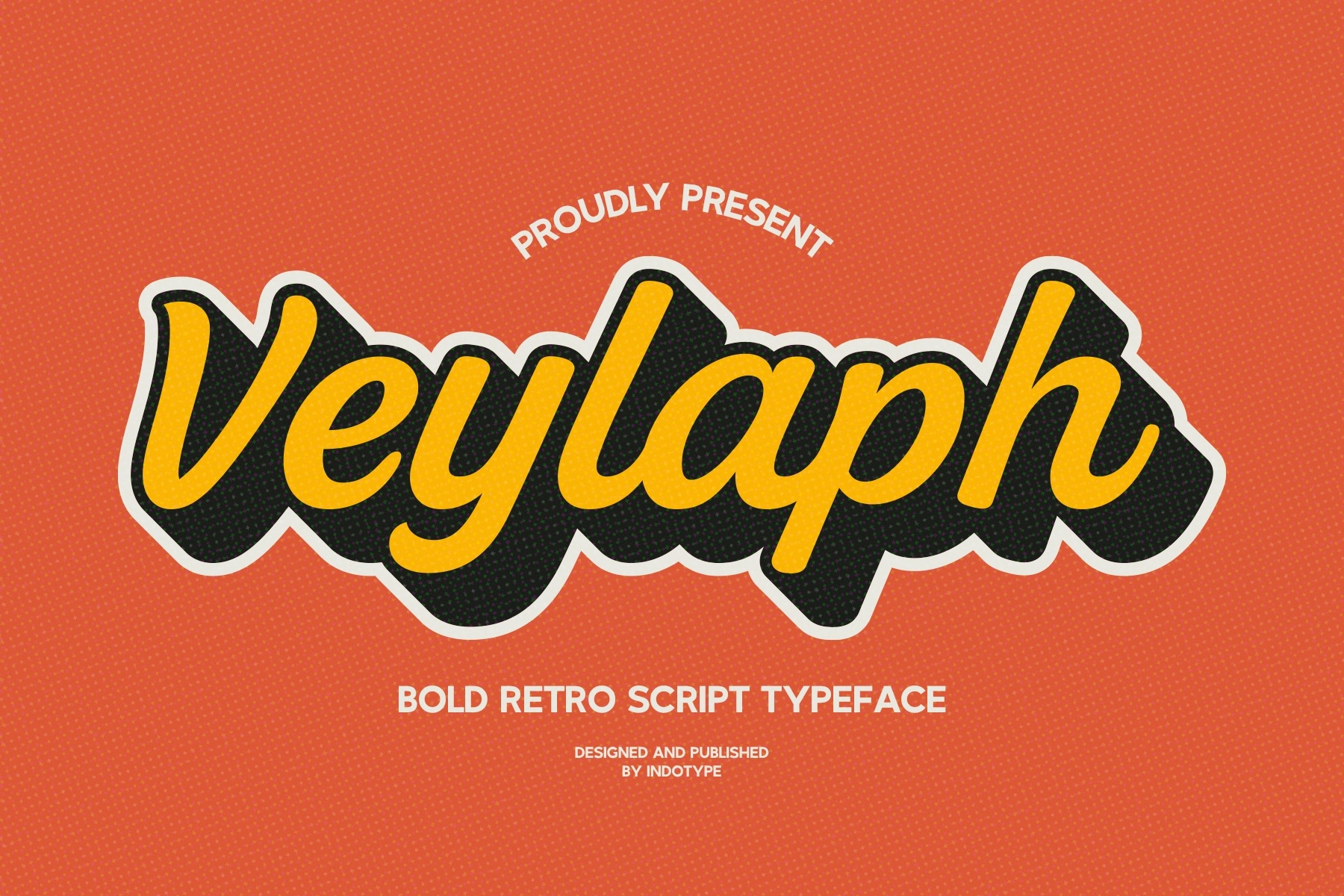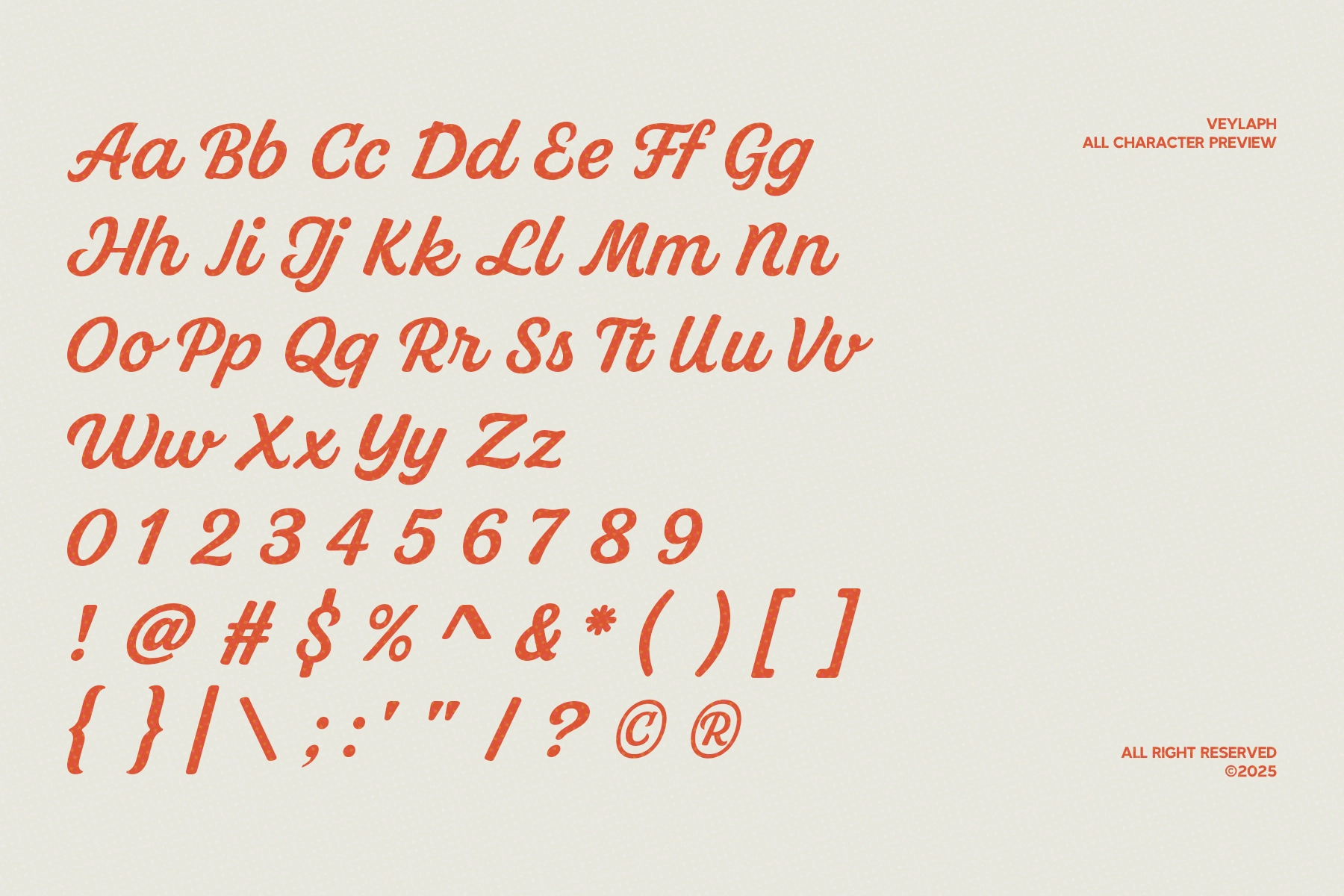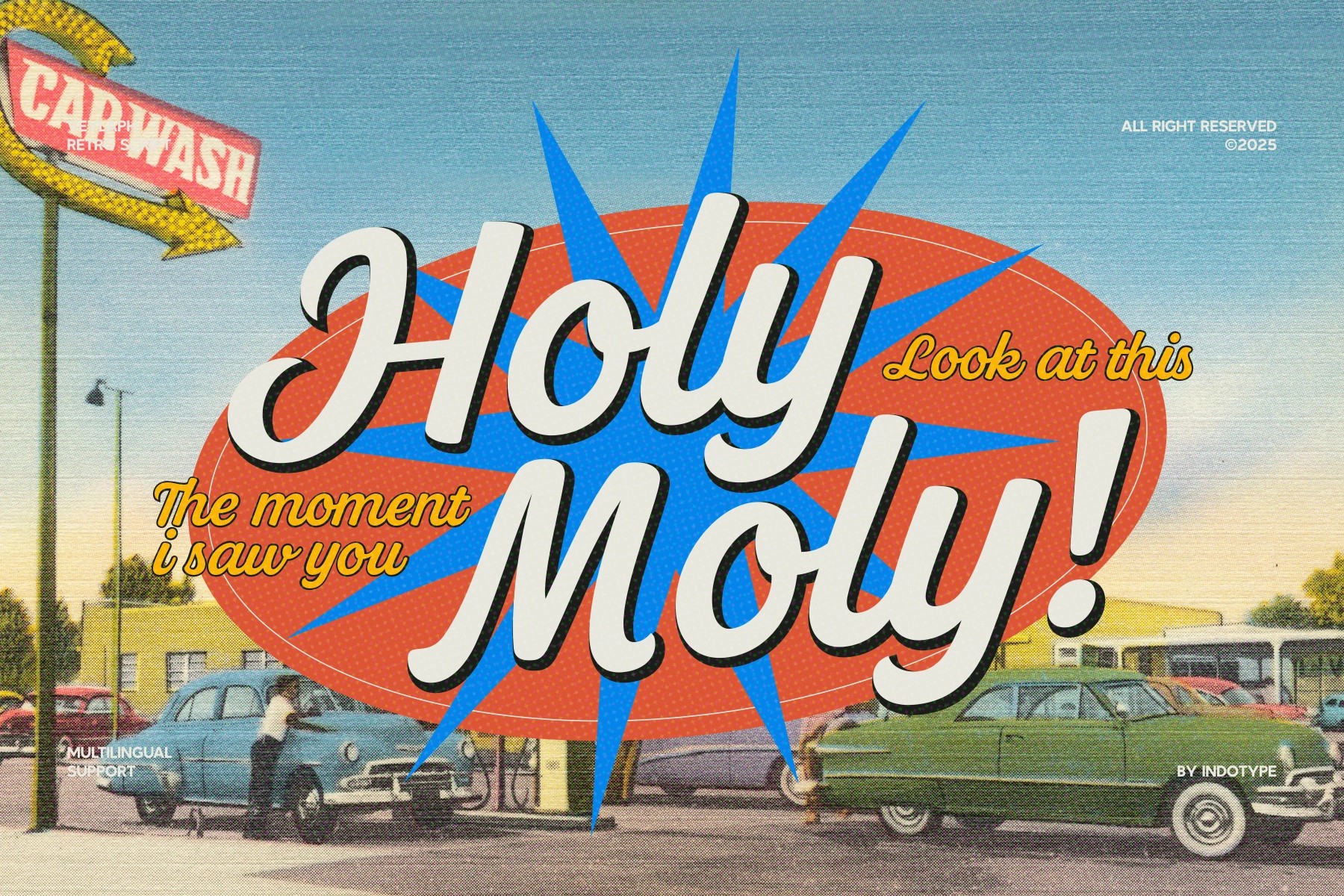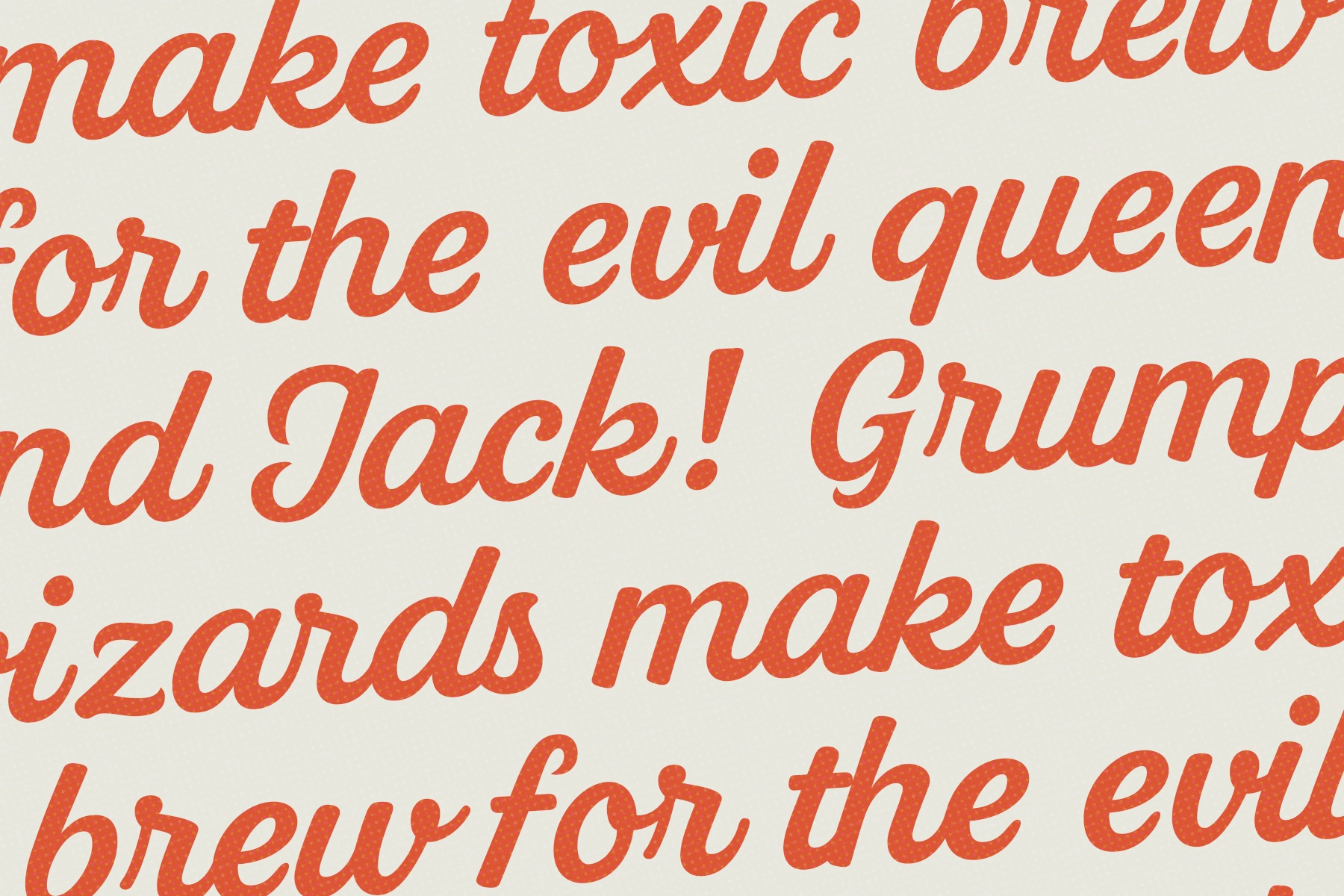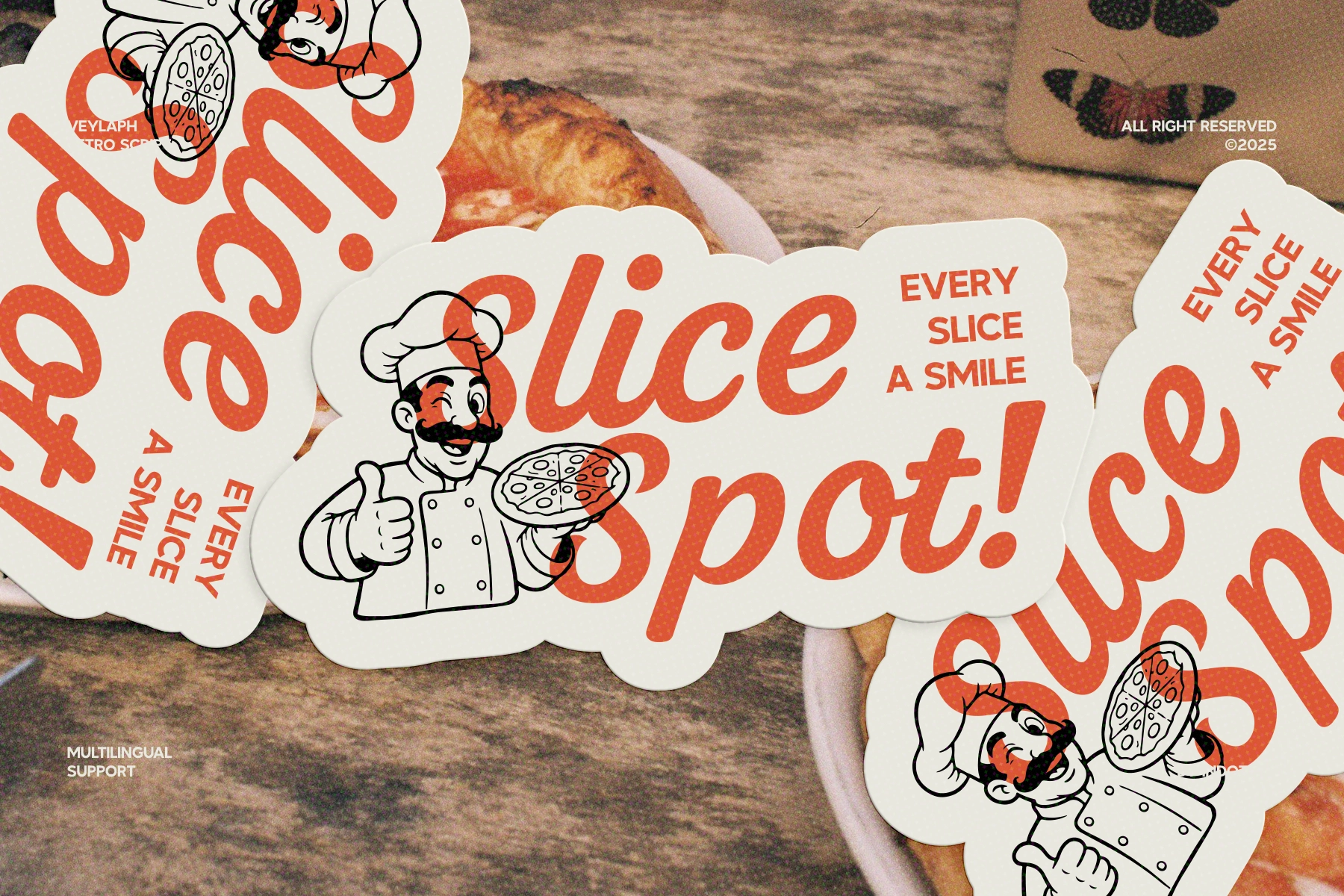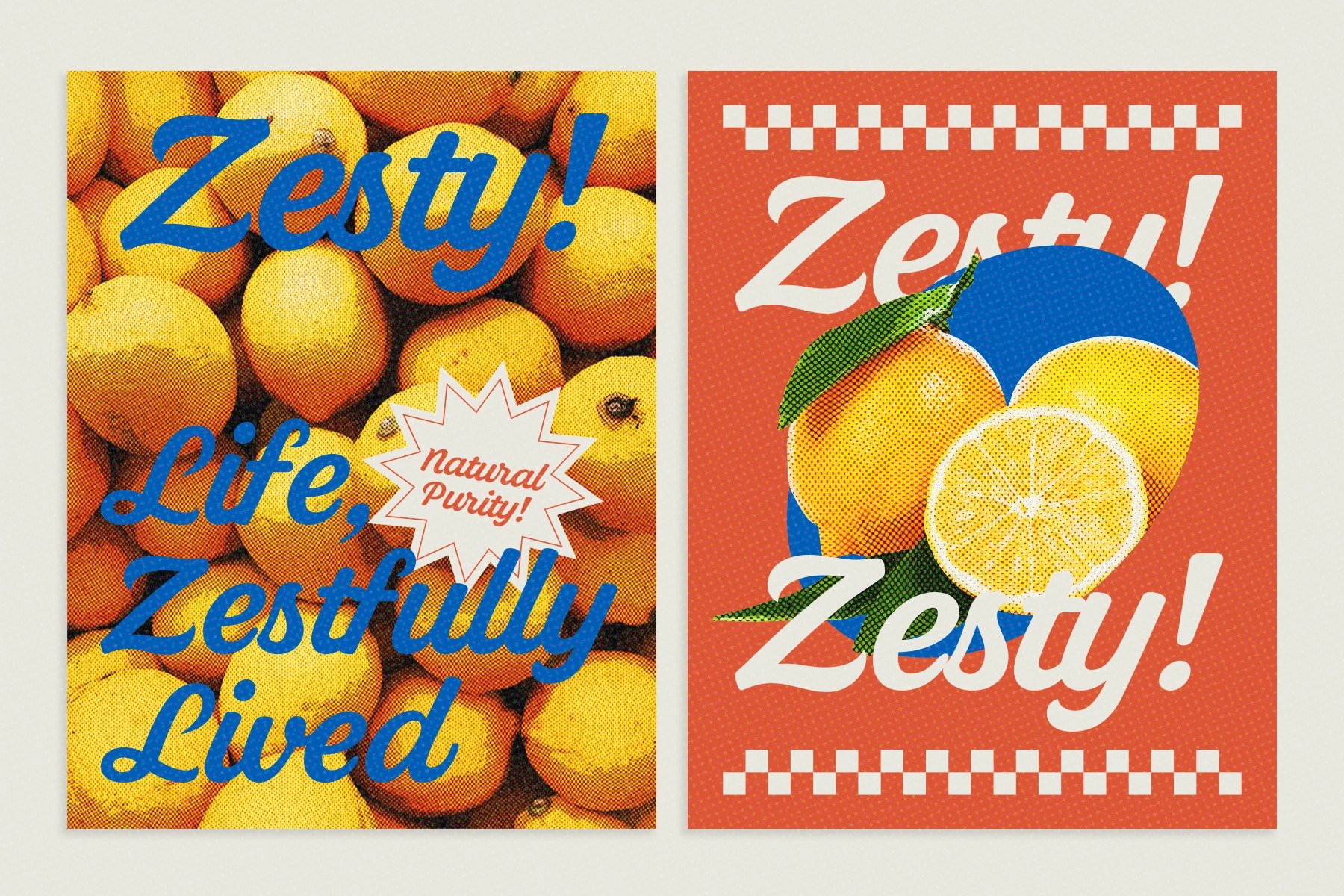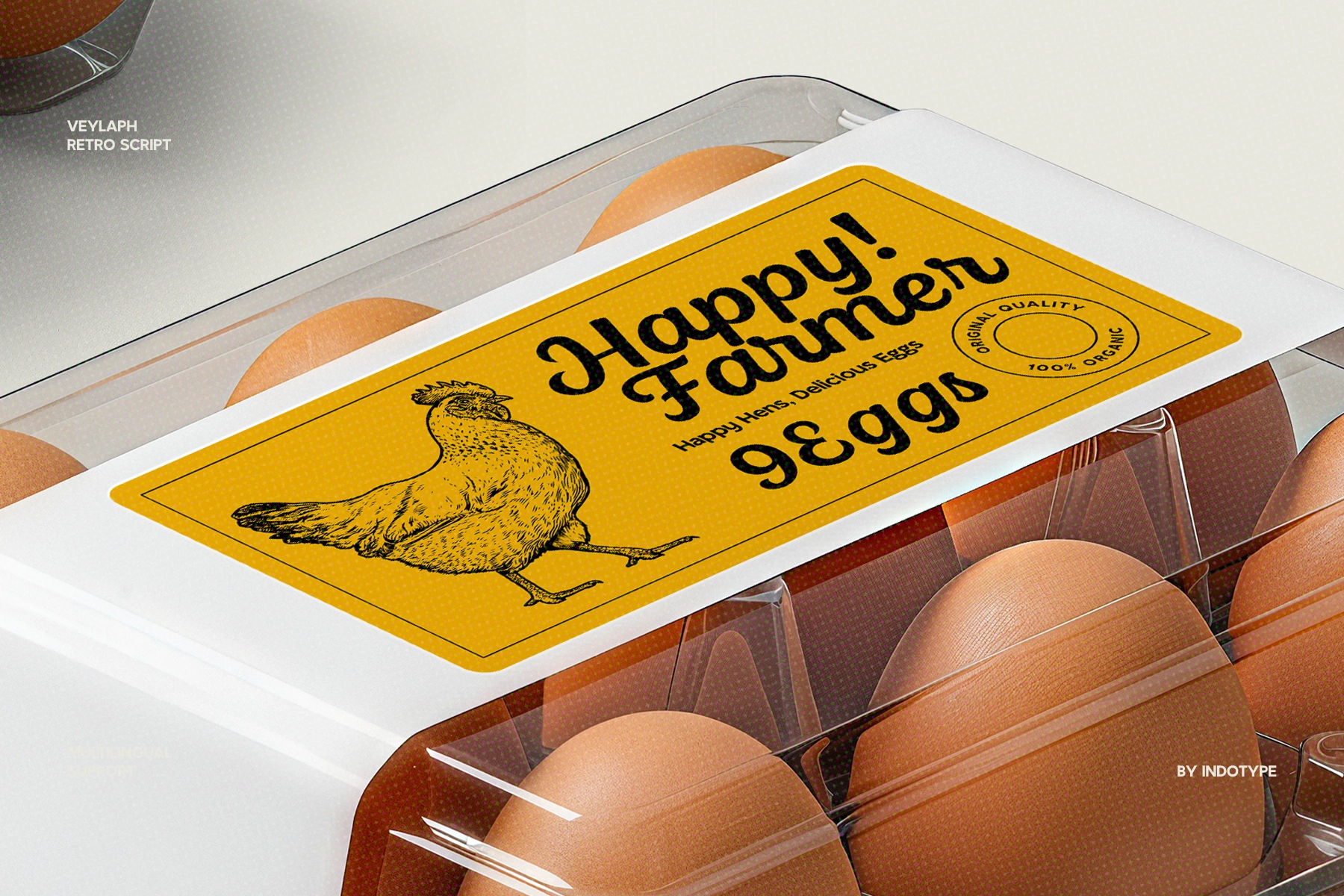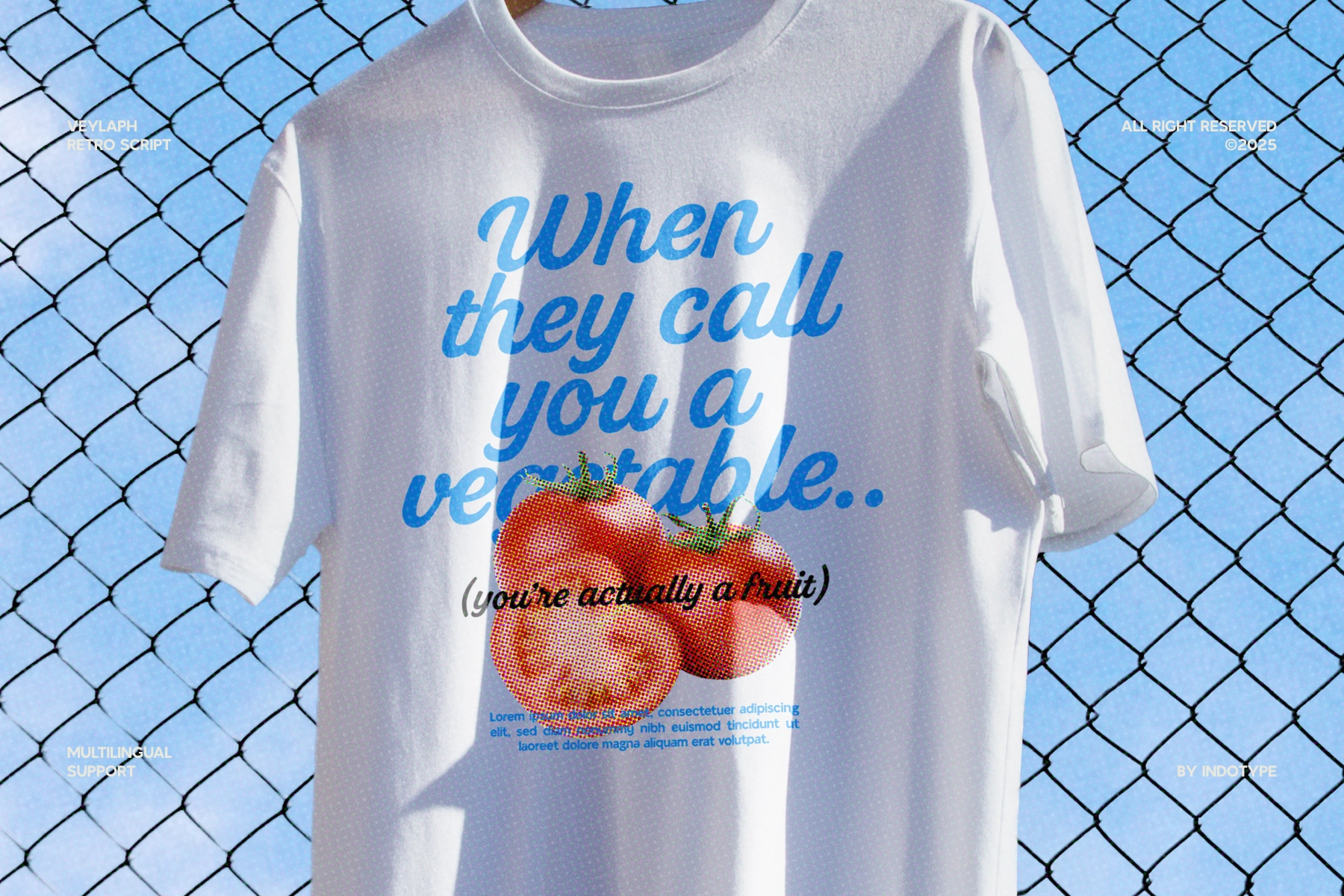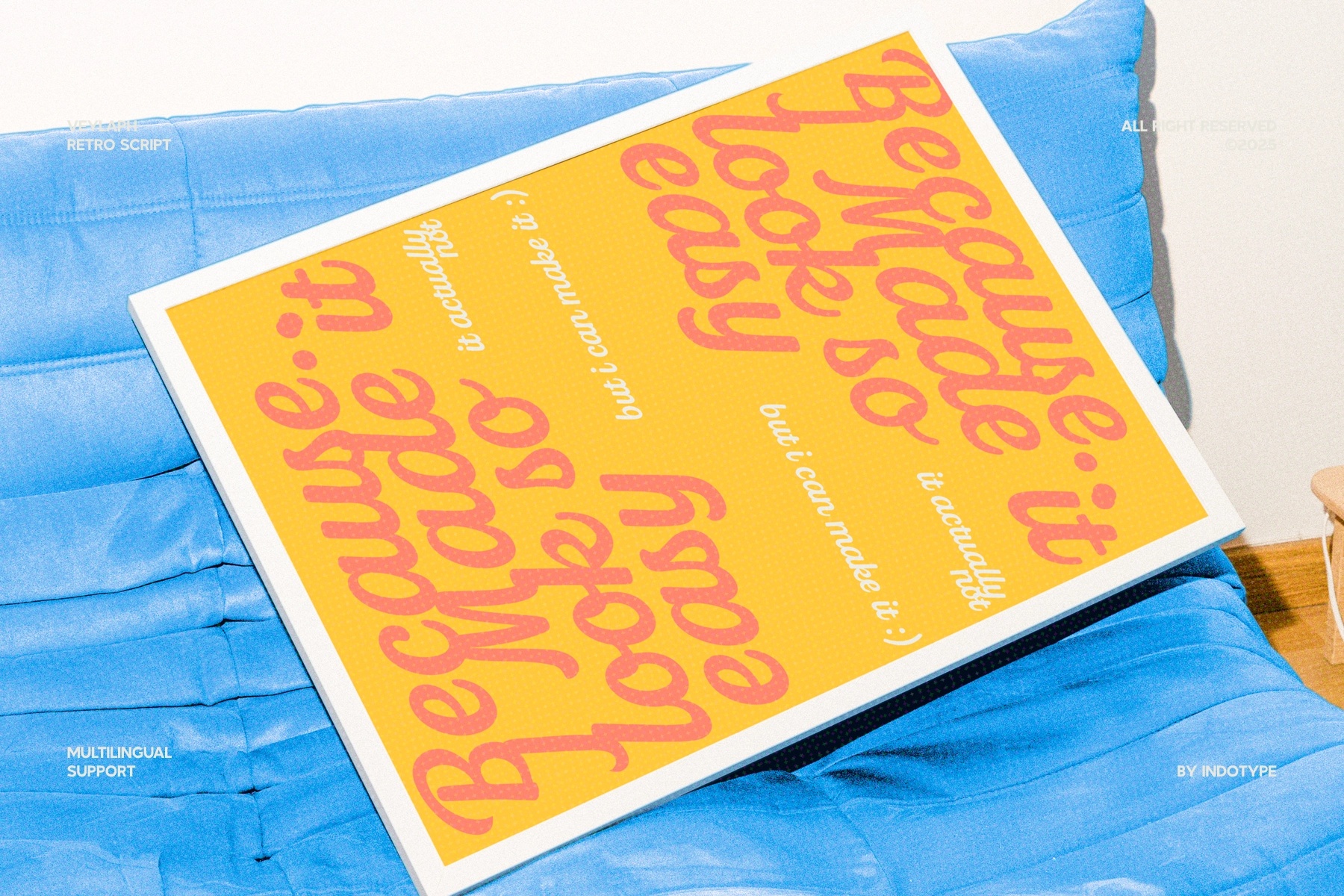
Veylaph - Bold Retro Script Font
This retro typeface has rounded script lettering, thick strokes, and a cheerful hand-painted rhythm. Its curves are smooth and expressive, with a lively 1970s-inspired character that works especially well for designs that need warmth, humor, and visual punch.
Veylaph is a strong pick for pizza branding, café menus, food packaging, sticker designs, posters, apparel graphics, shop signage, editorial headlines, advertising layouts, social media graphics, greeting cards, and more. The generous letter shapes give short phrases a loud, friendly presence without turning them into typographic shouting — which is rare, and frankly appreciated.